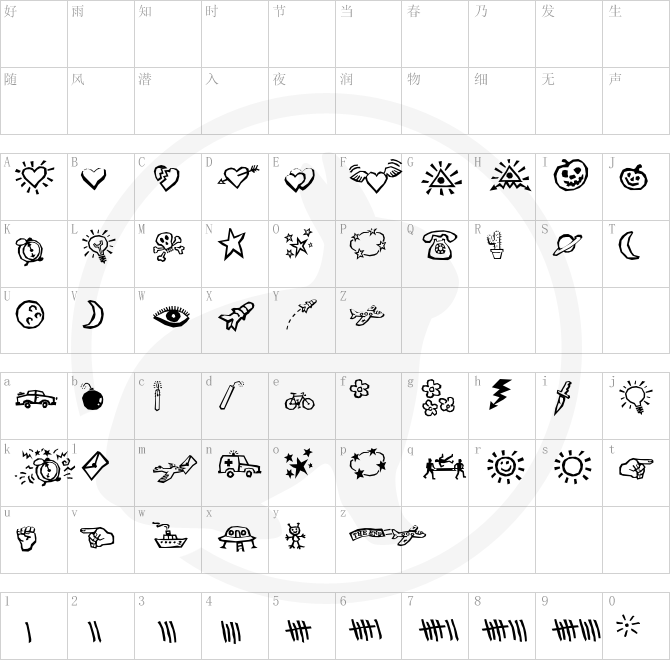
F-2FSimbolico.ttf is a very beautiful artistic font, F-2FSimbolico.ttf is widely used in the design and printing of various books and pictures,F-2FSimbolico.ttf has a strong visual impact,F-2FSimbolico.ttf is a commonly used font in newspapers, magazines and books, and is used in posters, e-commerce Poster design, store design, logo design, font design and other fields.F-2FSimbolico.